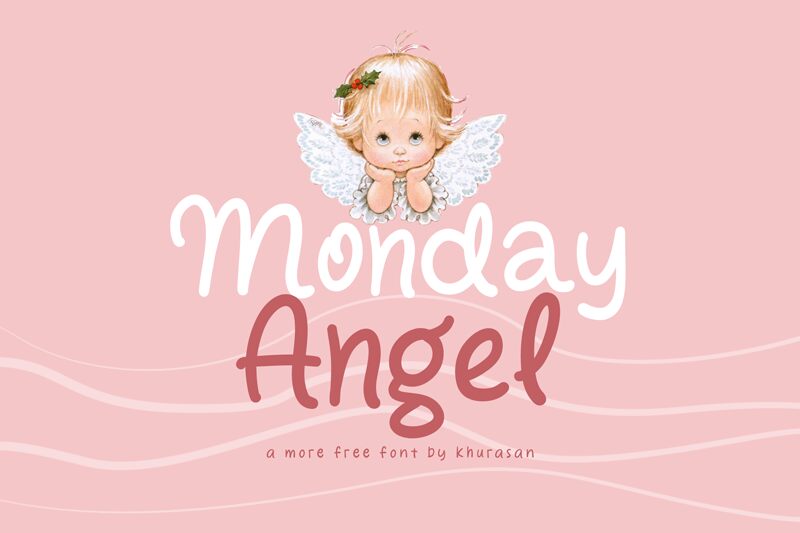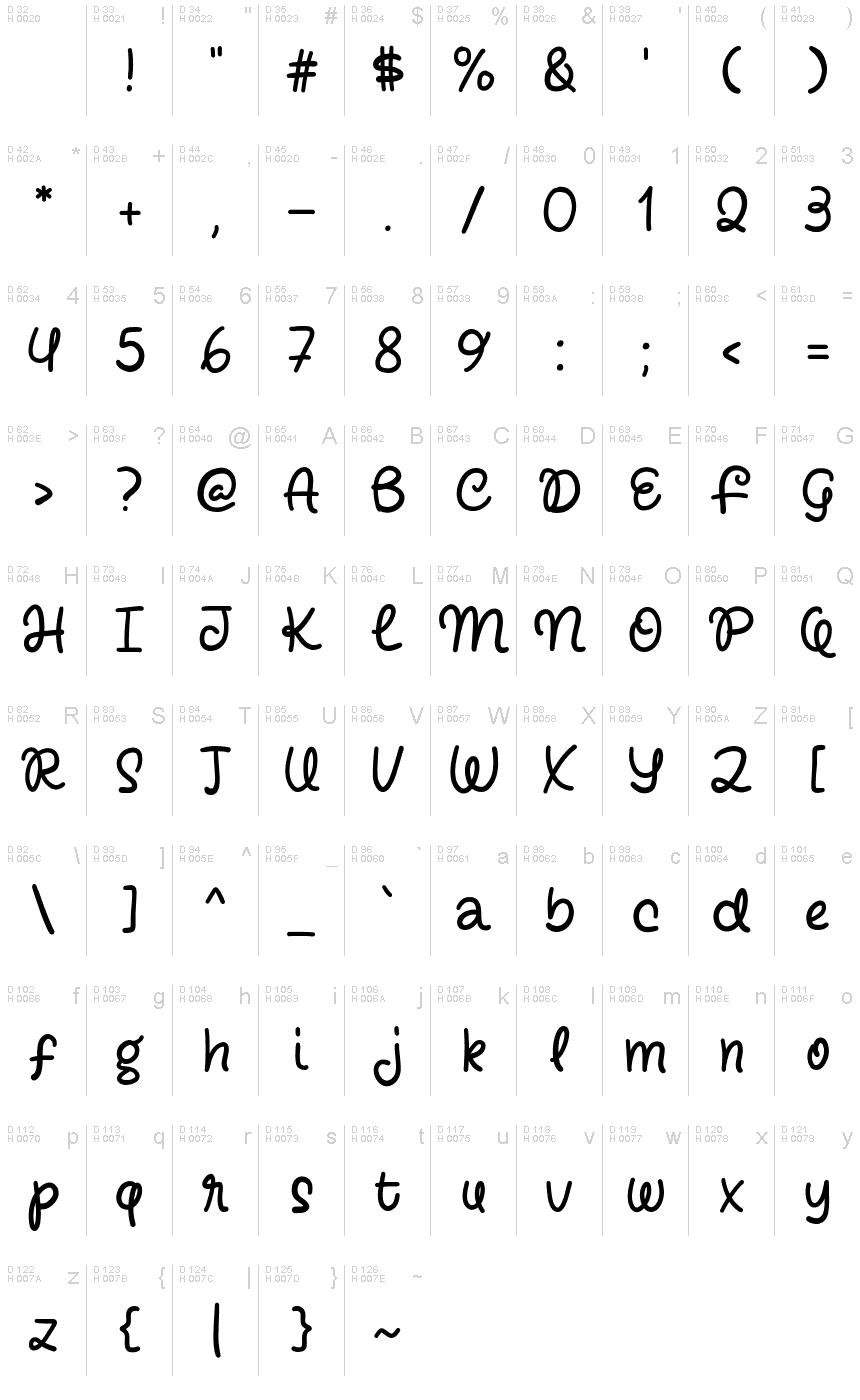
Monday Angel
Monday Angel, a delightful handwritten font created by Khurasan, is the perfect companion for your design projects.
With its modern and cute style, this font adds a touch of charm to posters, logos, magazines, book covers, banners, and more. Its versatility knows no bounds as it effortlessly enhances your creative ideas. Whether you're designing an adorable children's book cover or creating an eye-catching logo for a trendy boutique, Monday Angel will make your designs stand out from the crowd.